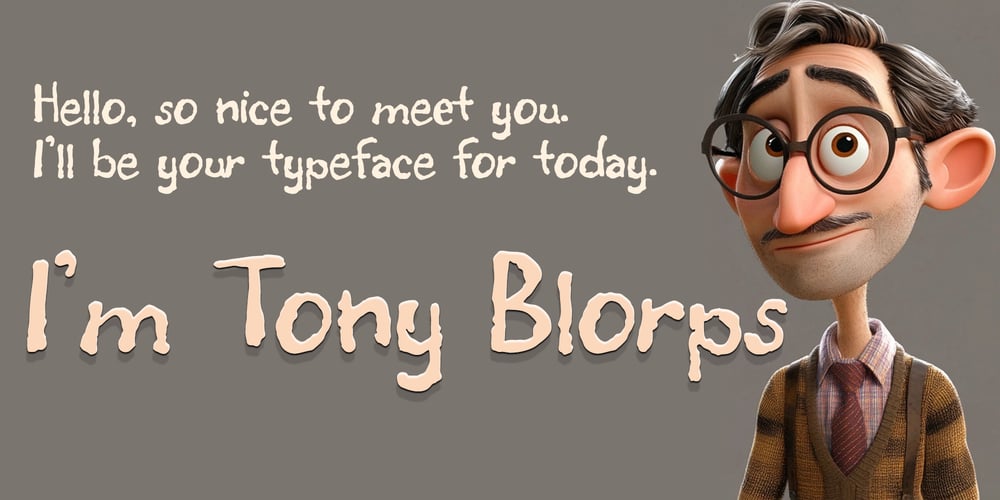
Tony Blorps Font Family was designed by Brian J. Bonislawsky, Dave Cohen and published by One Eyed Squid. Tony Blorps contains 1 styles and family package options. Allow me to introduce myself, I’ll be your typeface for today, my name is Tony Blorps.I’m a handwritten font with a quirky and roughened personality, but I have a lot of heart and a fun side. I like long typesettings in a document, and sunsets while sitting at my computer. Let’s run off and desktop publish together. Shh! Don’t think, just type with me.(Tony Blorps contains an extended Latin character set with added Vietnamese support.)